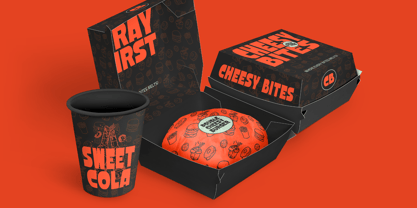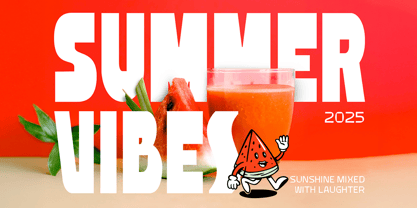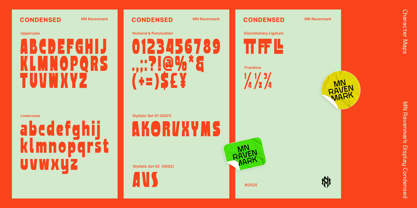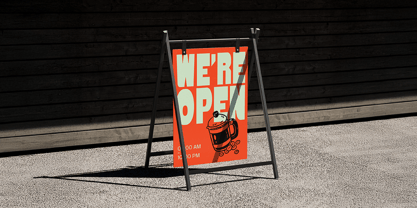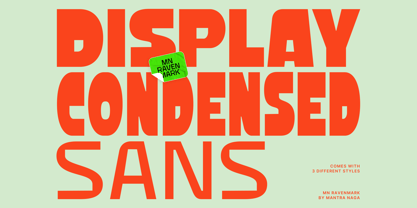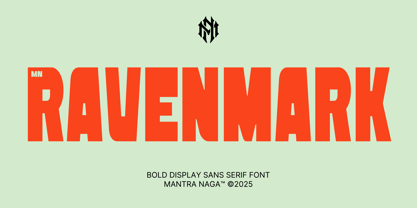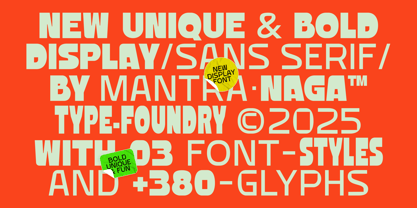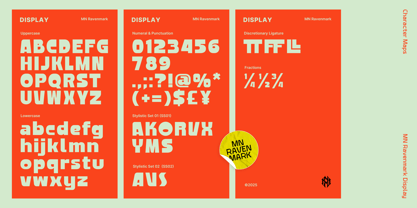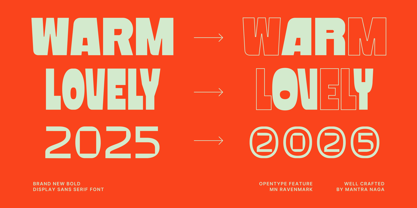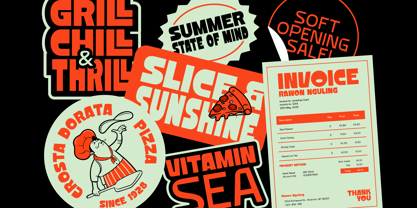
MN Ravenmark
by Mantra Naga Studio
The MN Ravenmark Font Family was designed by Fredo Eka Pratama and published by Mantra Naga Studio. MN Ravenmark contains 3 styles and family package options.
MN Ravenmark is a bold, modern display sans serif font family with three matching styles: Display, Display Condensed, and Sans. This typeface blends vernacular typography with Bauhaus and Art Deco influences. The result is a bold yet functional design that works across many creative applications.
The Display and Display Condensed styles are ideal for eye-catching headlines, posters, and event branding. They feature strong geometric shapes and high visual impact. The Sans style is designed for body text, offering readability and balance to complement the display styles.
MN Ravenmark is perfect for graphic designers, creative agencies, and brand developers. Whether you’re designing for summer events, food and beverage brands, or editorial layouts, this font family gives you the flexibility and cohesion you need.
Key Features:
- 3 matching styles: Display, Display Condensed, and Sans
- Inspired by vernacular signage, Bauhaus, and Art Deco
- Great for modern branding, posters, editorial, and web design
- Easy font pairing across styles for visual harmony